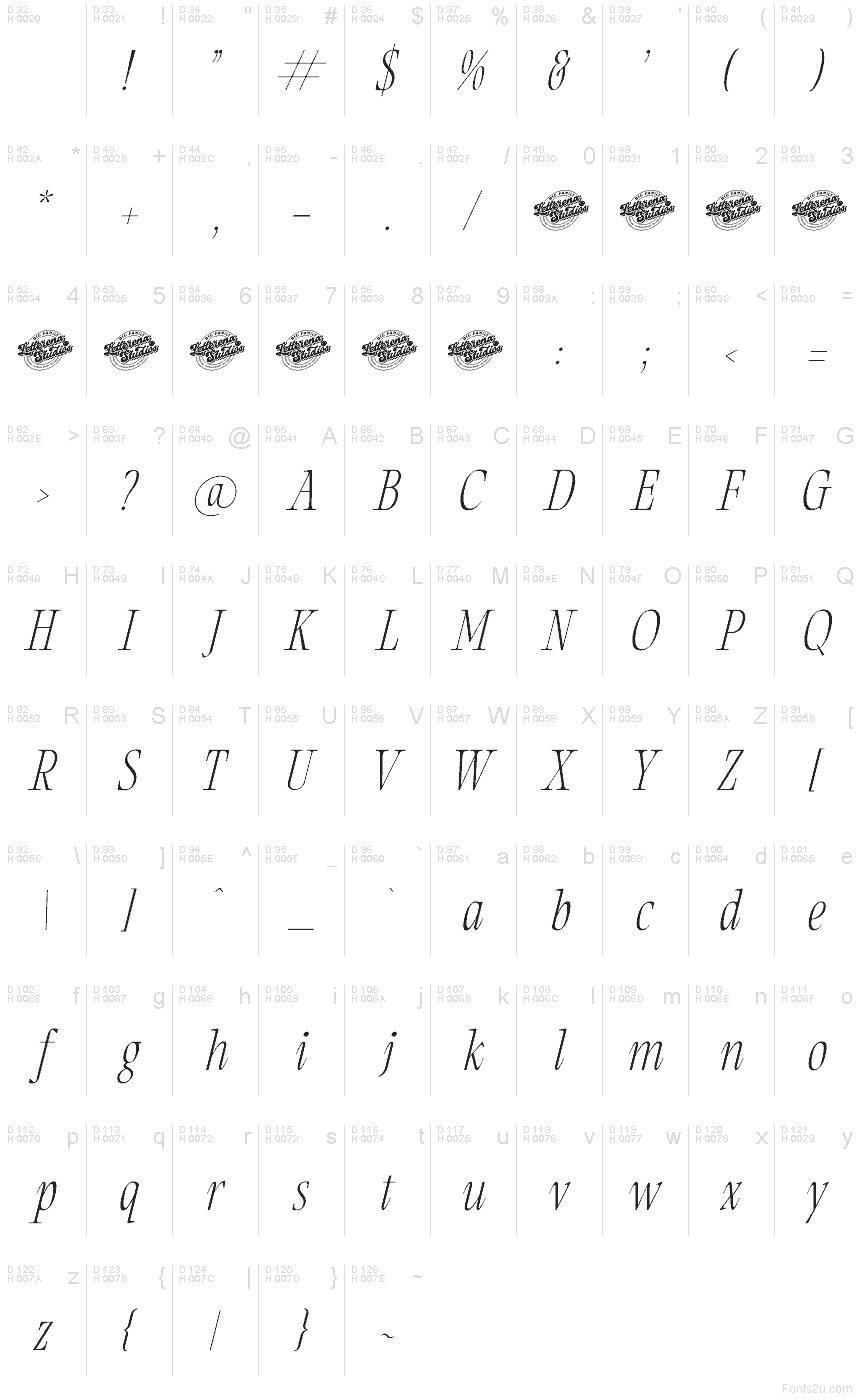
Clamofte DEMO VERSION Italic
Clamofte Italic font by Letterena Studios is a free serif typeface with the sweep and drama of a handwritten signature. Tall, narrow letterforms lean forward with a graceful slant, while the strokes taper from inky thick curves to whisper-thin lines, giving every word a poised, couture feel. It reads like a refined note scribbled with a fountain pen—elegant, slightly theatrical, and full of motion.
Using Clamofte Italic, headlines and names instantly feel more luxurious and intentional, so it shines on logos, fashion branding, beauty packaging, book covers, invitations, and editorial titles. This free font works beautifully when set large, letting the delicate strokes breathe. For a polished system, pair Clamofte from the same family with a clean sans-serif for body text to balance its flowing, romantic energy.